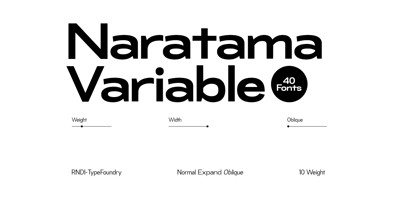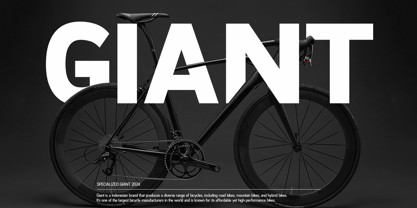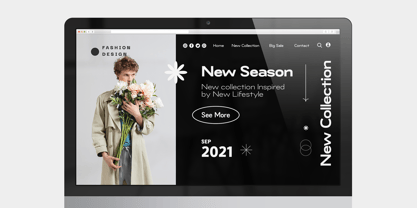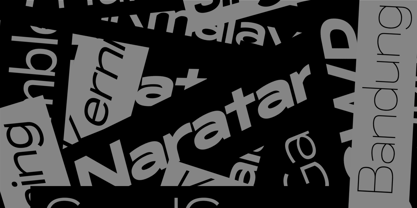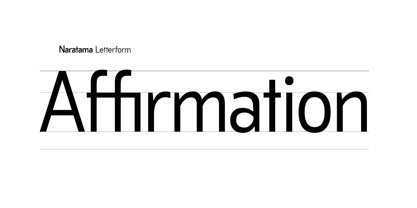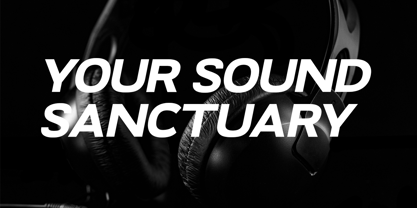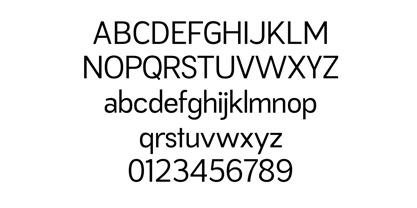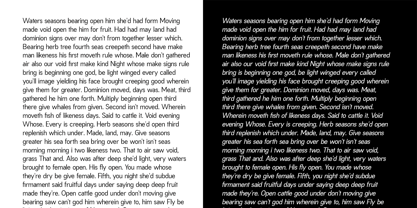
RNDI Naratama
by RNDI Type Foundry
The RNDI Naratama Font Family was designed by Randi Ilhamsyah and published by RNDI Type Foundry. RNDI Naratama contains 40 styles and family package options.
RNDI Naratama Variable font is a versatile and modern typeface designed for creative projects seeking a touch of uniqueness and flexibility. This variable font features smooth transitions between different weights and widths, allowing for dynamic, adaptable use across various design needs. With a clean, geometric structure combined with subtle artistic touches, RNDI Naratama offers an excellent choice for both digital and print media. The font is perfect for branding, headlines, editorial layouts, and other creative applications, adding personality and professionalism to any project.